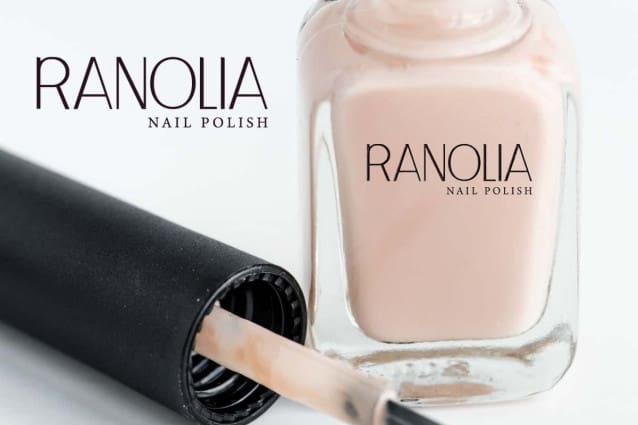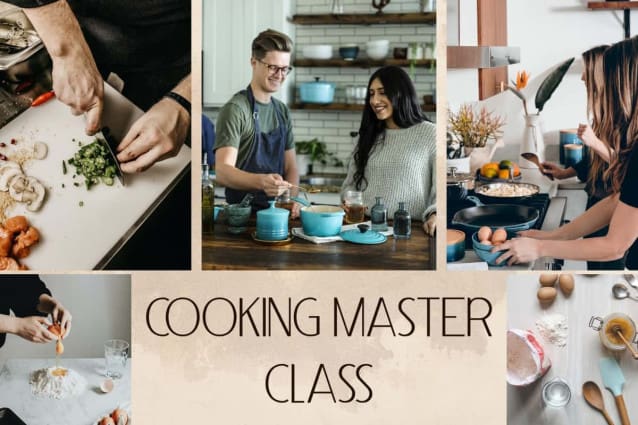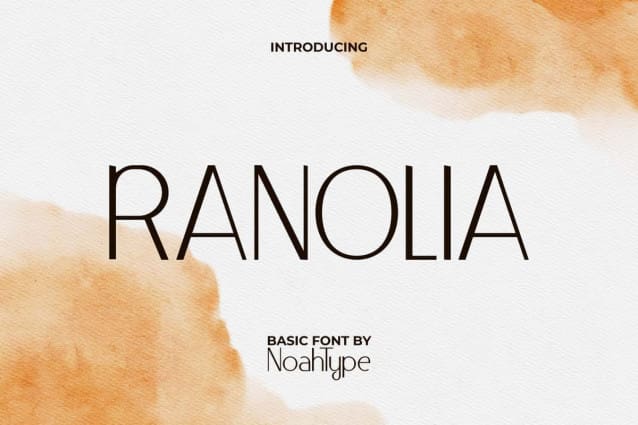
Ranolia Font
Ranolia Font is a sans serif font in a modern style with stylish look. This font has a cool style that is used by many people because it has a timeless vibe. It will be good for any designs, such as brand image, business card, custom design, invitation, label, magazine, poster, product packaging, quote, signage, stationery, web, and more!
Ranolia Font includes full set of Uppercase and Lowercase Basic Characters, Numerals, Punctuation, and Symbol. The characters of this font will give stylish modern looks and perfect choice for many industries, such as advertisement, beauty product, café, event or festival, fashion, printing, publishing, restaurant, salon spa, etc.